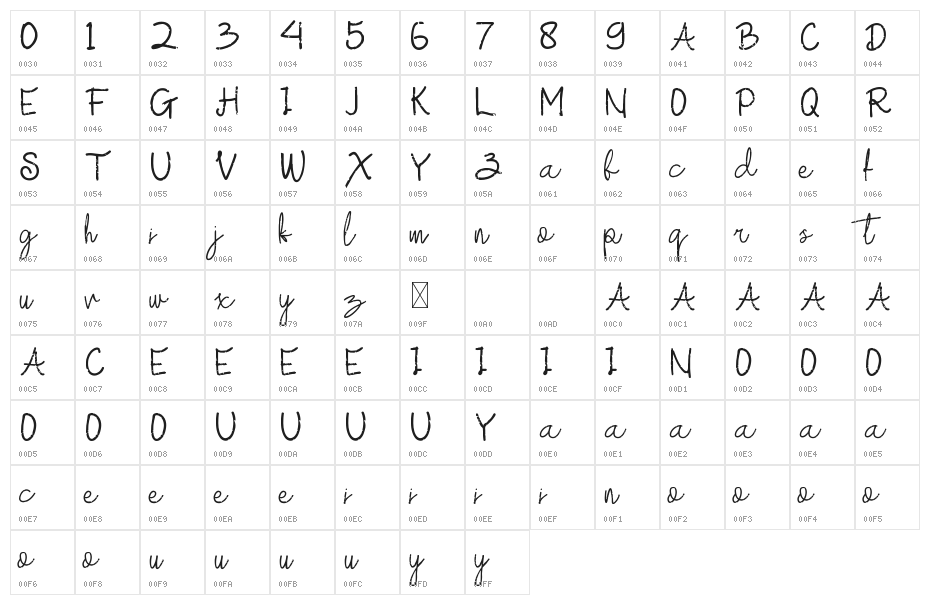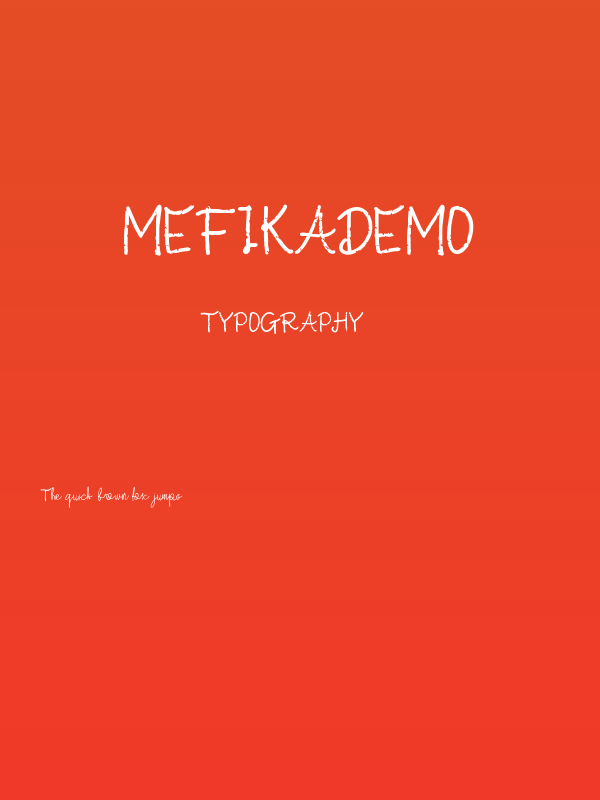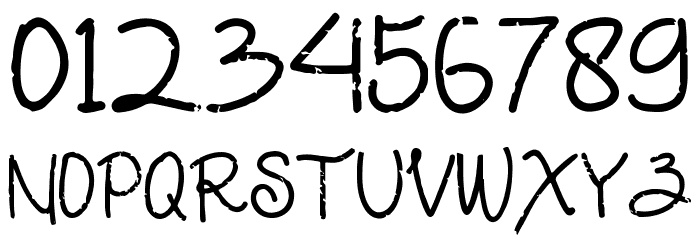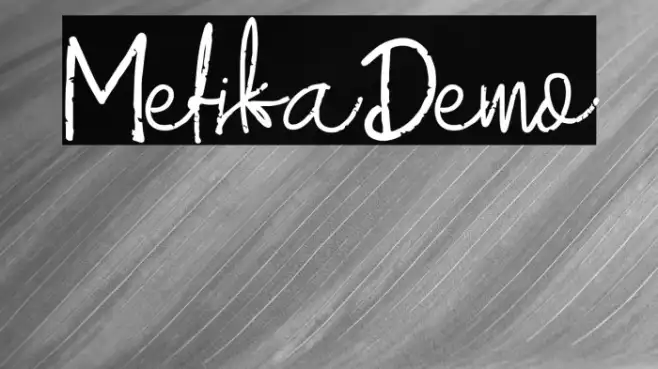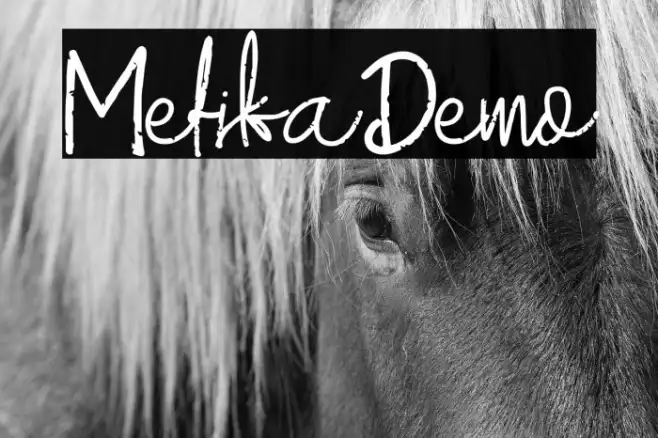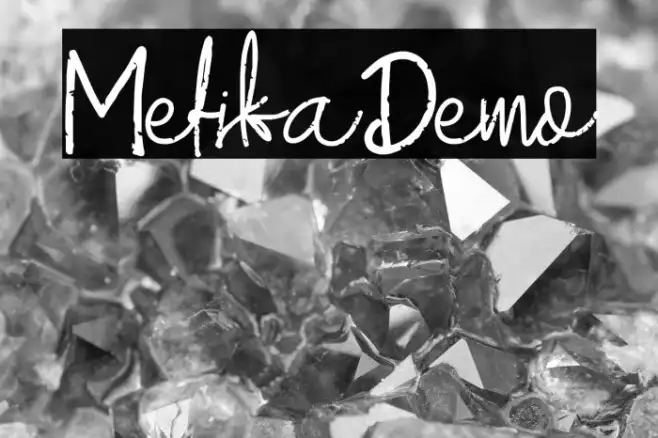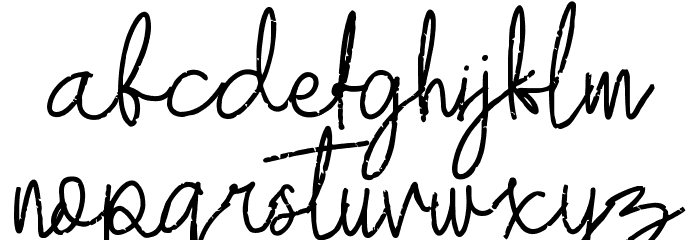
MefikaDemo Font
MefikaDemo Description
This font features a unique blend of handwritten and distressed styles, giving it a rugged yet personal feel. The uppercase letters are bold and slightly irregular, with a textured appearance that suggests a worn or vintage look. The lowercase letters are more fluid and script-like, adding a touch of elegance and casualness. Numbers are bold and maintain the distressed style, ensuring consistency across all characters. Special characters follow the same design, making them fit seamlessly into any text. This font's distinct style makes it ideal for projects that require a personal touch or a vintage aesthetic.
| Proposed Projects | Ideal for branding, packaging, posters, and invitations that require a personal or vintage touch. |